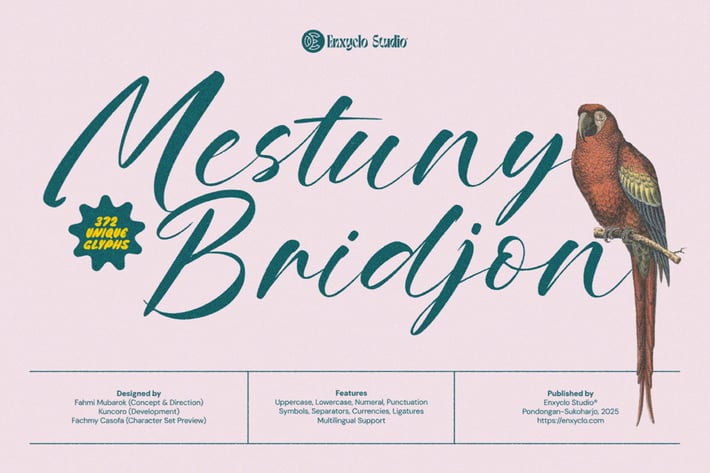
Mestuny Bridjon – Modern Brush Script Font
Mestuny Bridjon is a modern handwritten brush script font with a touch of vintage elegance and modern flow. Crafted with artistic precision, this font is designed to bring a handcrafted, authentic feel to your designs. It’s perfectly suited for branding, packaging, editorial headlines, wedding invitations, and stylish quotes. Whether you're a designer crafting a brand identity or a creator in need of a bold yet graceful font, Mestuny Bridjon offers the versatility and character you need.
- 372 Unique Glyphs
- Uppercase & Lowercase
- Symbols & Currency
Perfect for:
- Brand identity & logo design
- Wedding invitations
- Lifestyle magazines
- Product packaging
- Social media graphics
- Handwritten quote designs